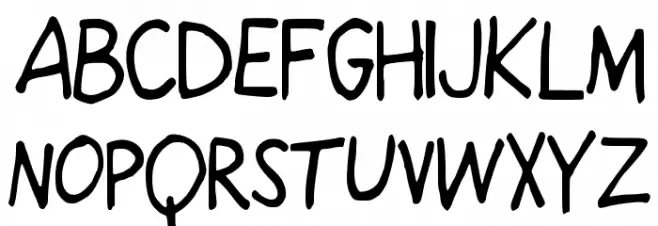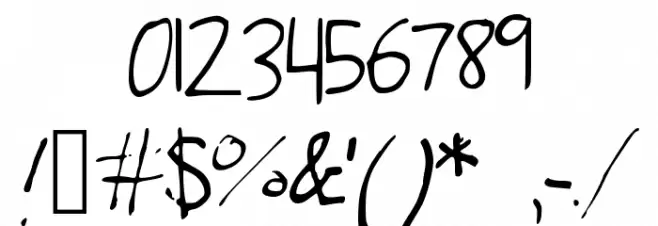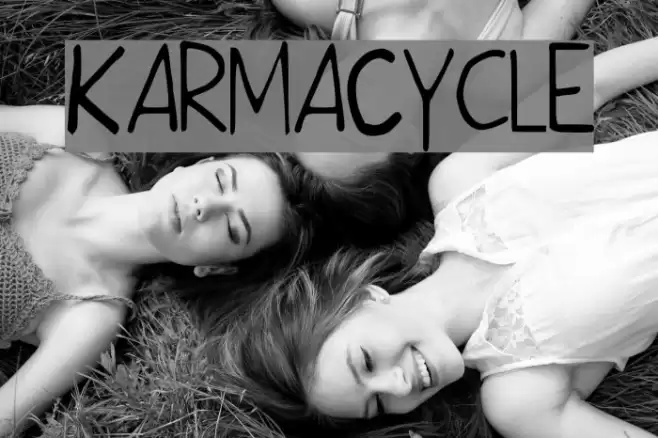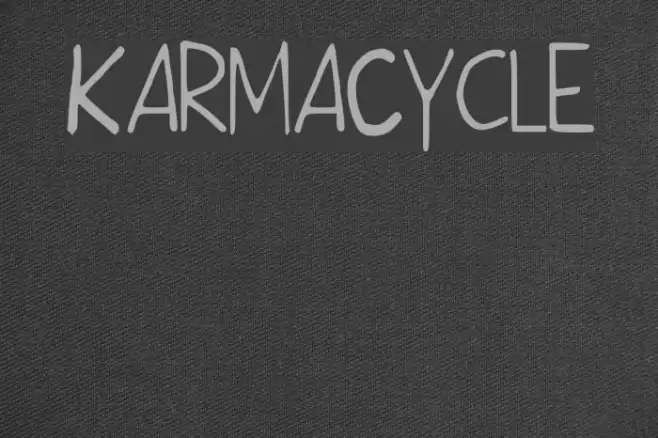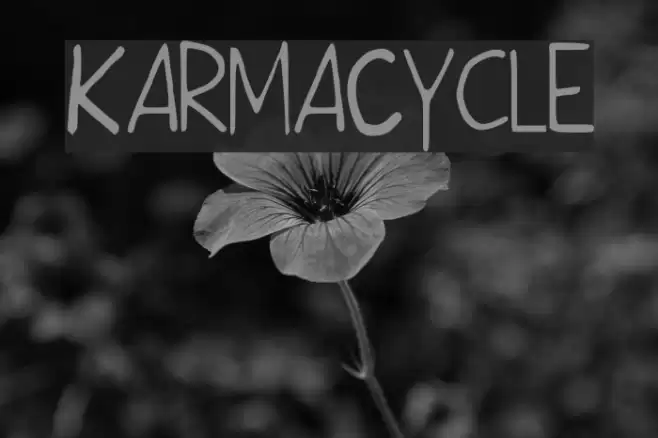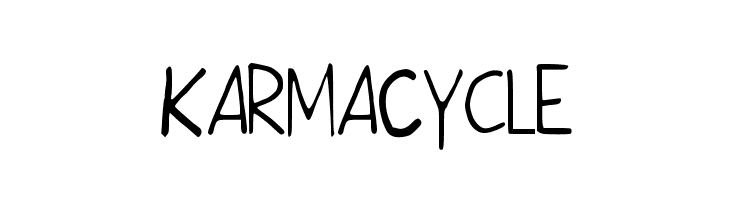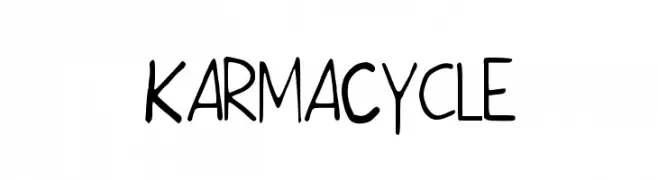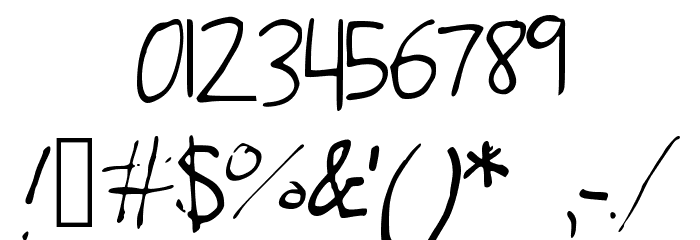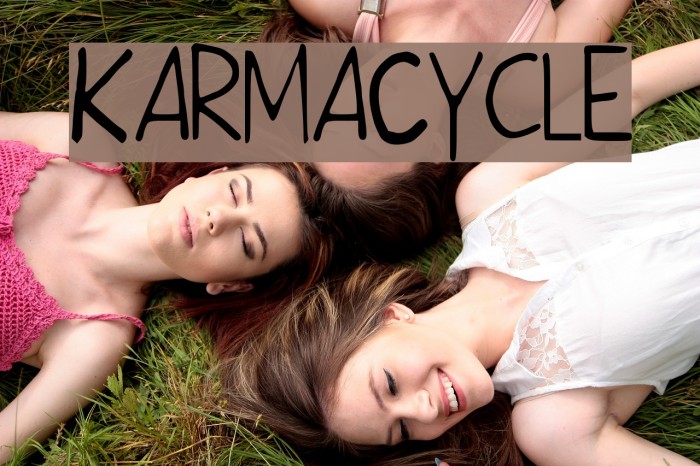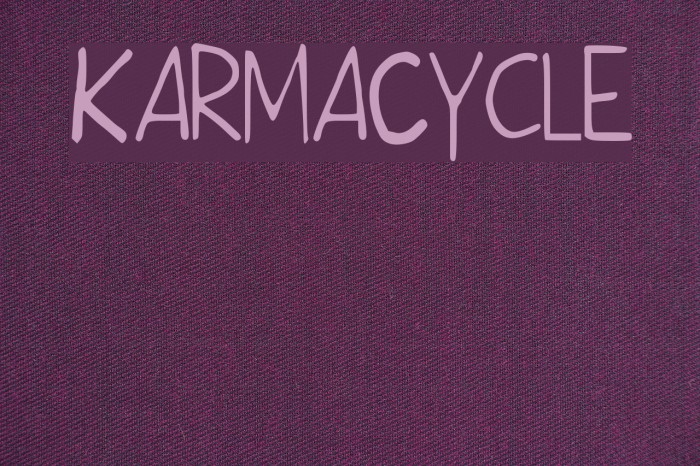
KarmaCycle
This font exhibits a playful and informal handwritten style, characterized by its irregular strokes and casual appearance. The uppercase and lowercase letters maintain a consistent flow, with slightly uneven lines that add to its charm. The numerals and special characters follow the same whimsical style, making it suitable for creative and fun projects. The font's overall appearance is approachable and friendly, making it ideal for designs that aim to convey a sense of warmth and personality.
A playful, handwritten font with a casual and friendly style.
- Proposed Projects: Ideal for greeting cards, children's books, playful branding, and casual invitations.
- Overall Style: Casual
- Use Case: Headlines, Informal text, Creative projects